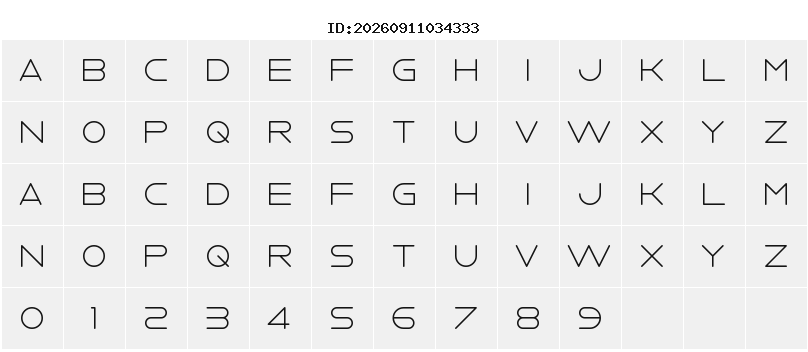
Vermin Vibes 2 Nightclub Preview
• Font Name: Vermin Vibes 2 Nightclub
• Full Font Name: Vermin Vibes 2 Nightclub
• Version: Version 1.00 December 13, 2013, initial release
About Vermin Vibes 2 Nightclub.otf
Vermin Vibes 2 Nightclub.otf is a modern, elegant sans-serif font designed for ultimate readability and visual harmony. Perfect for branding, headlines, web design, and print materials.